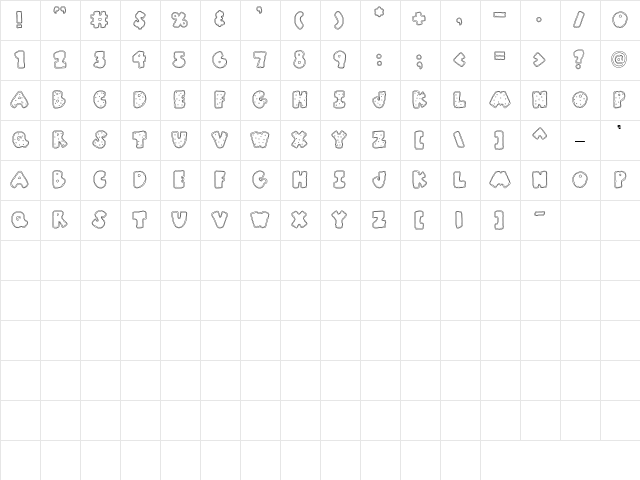
CK Sugar Cookie Regular
Design Context for CK Sugar Cookie
CK Sugar Cookie is a composed and adaptable typeface that performs quietly and consistently across a wide range of design contexts.
Pro Tip: Use CK Sugar Cookie in both headline and body roles to test its range before committing to a single application.